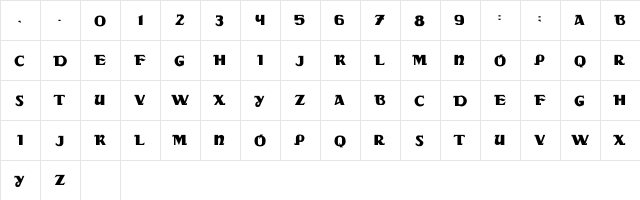
DS RadaC Regular
Design Context for DS RadaC Typeface
DS RadaC is a composed and adaptable typeface that performs quietly and consistently across a wide range of design contexts.